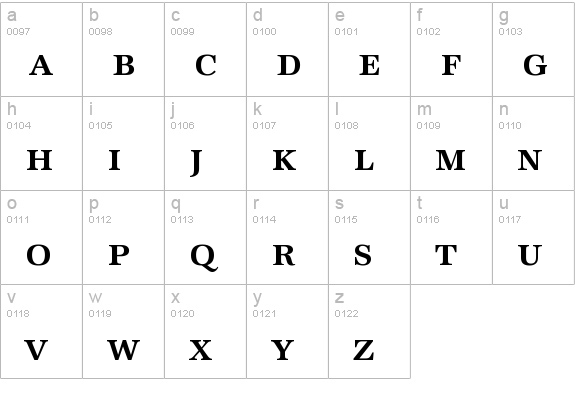
Antiqua-Caps-Bold Font Details
Antiqua-Caps-Bold is a strong, high-contrast variant in the Antiqua typeface family \xE2\x80\x94 well suited to headlines, attention-grabbing titles, and strong calls-to-action.
Antiqua-Caps-Bold is a striking and elegant font that exudes sophistication and timeless charm. With its bold and distinctive letterforms, this typeface is perfect for making a statement in headlines, titles, and branding materials. The classic design of Antiqua-Caps-Bold brings a touch of vintage flair to any project, while maintaining a modern edge. This font is not only visually appealing but also highly versatile, making it suitable for a wide range of design applications. Whether you are creating posters, invitations, logos, or any other creative project, Antiqua-Caps-Bold is sure to add a touch of class and professionalism. Best of all, Antiqua-Caps-Bold is available for free download at FontsMarket.com. This means that you can easily access this beautiful font and use it in your projects without any cost. Don't miss out on the opportunity to enhance your designs with the timeless elegance of Antiqua-Caps-Bold. Download it today and take your creative work to the next level!